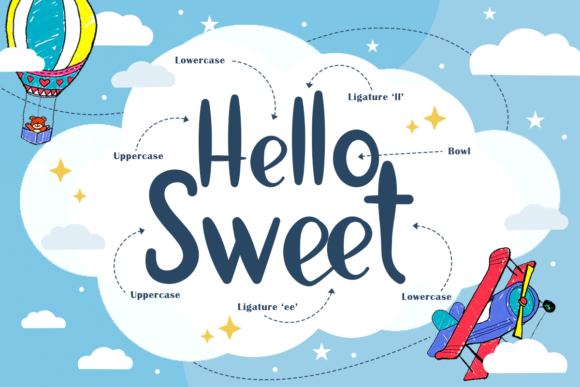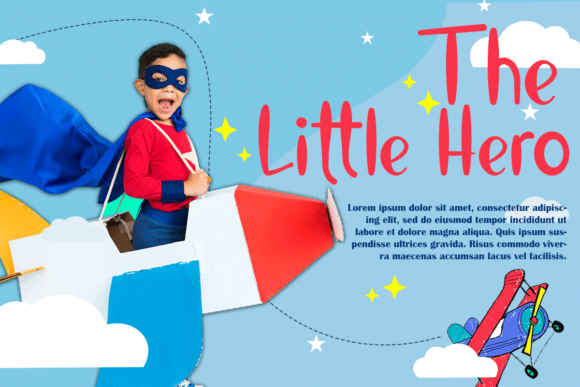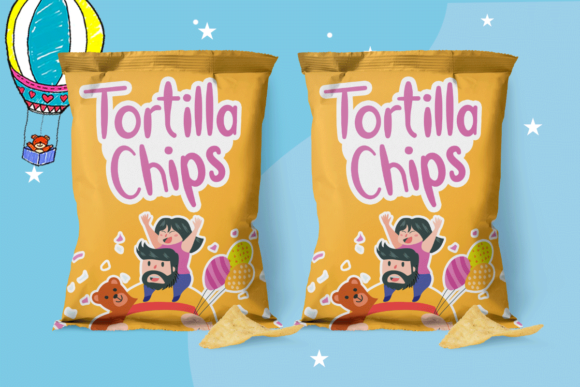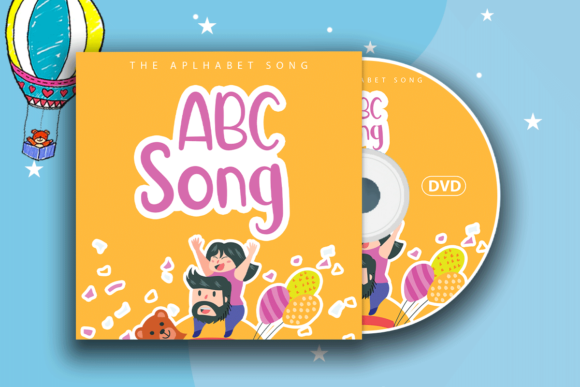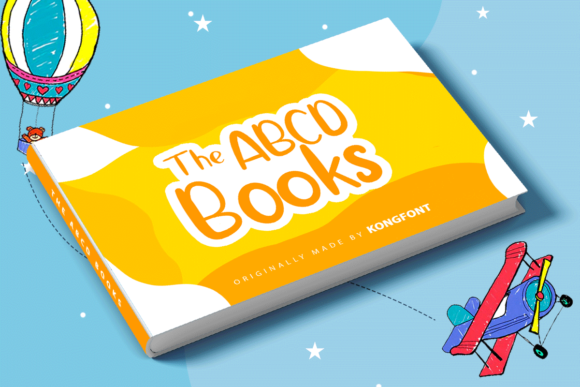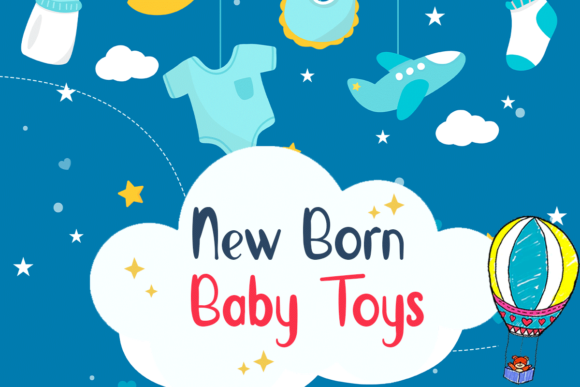
Introducing Blizzy Font: The Ultimate Choice for Fun and Creative Projects
Are you a designer, crafter, or educator looking for a font that embodies playfulness and authenticity? Look no further than Blizzy Font! This cool, adaptable, and casual display font is perfect for any children activity or school project that requires a touch of fun and whimsy.
What Makes Blizzy Font So Special?
Blizzy Font is designed to capture the carefree spirit of childhood, making it an ideal choice for projects that require a playful and youthful vibe. Its unique characteristics include:
- Playful curves and lines: Blizzy Font features smooth, rounded curves and lines that give it a friendly and approachable feel.
- Adaptable style: This font is versatile and can be used for a wide range of projects, from posters and flyers to worksheets and activity sheets.
- Casual charm: Blizzy Font has a relaxed, informal vibe that’s perfect for creating materials that feel approachable and fun.
Why Choose Blizzy Font for Your Projects?
Whether you’re a designer, crafter, or educator, Blizzy Font offers a range of benefits that make it an excellent choice for your projects. Here are just a few reasons why:
- Instant recognition: Blizzy Font’s unique style makes it instantly recognizable, adding a touch of personality to your projects.
- Emotional connection: The playful and authentic feel of Blizzy Font helps create an emotional connection with your audience, making your projects more engaging and memorable.
- Easy to read: Despite its playful style, Blizzy Font is easy to read, making it perfect for projects that require a balance of fun and functionality.
Perfect for Children Activities and School Projects
Blizzy Font is specifically designed with children activities and school projects in mind. Its playful style makes it perfect for:
- Worksheets and activity sheets: Add a touch of fun to your worksheets and activity sheets with Blizzy Font’s playful style.
- Posters and flyers: Create eye-catching posters and flyers that will grab the attention of kids and parents alike.
- School projects: Use Blizzy Font to add a creative touch to school projects, making them more engaging and fun.
Tips for Using Blizzy Font Effectively
To get the most out of Blizzy Font, here are a few tips to keep in mind:
- Use it sparingly: Blizzy Font’s playful style is attention-grabbing, so use it sparingly to avoid overwhelming your design.
- Pair it with other fonts: Experiment with pairing Blizzy Font with other fonts to create a unique and visually appealing design.
- Experiment with colors: Blizzy Font looks great in a range of colors, so don’t be afraid to experiment and find the perfect hue for your project.
Blizzy Font is a cool, adaptable, and casual display font that’s perfect for any children activity or school project. Its playful style and authentic feel make it an excellent choice for designers, crafters, and educators looking to add a touch of fun and whimsy to their projects. With its instant recognition, emotional connection, and ease of readability, Blizzy Font is sure to become a go-to font for anyone looking to create engaging and memorable materials.